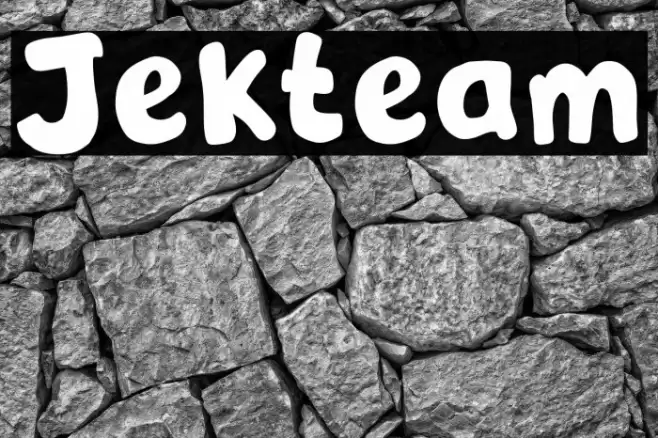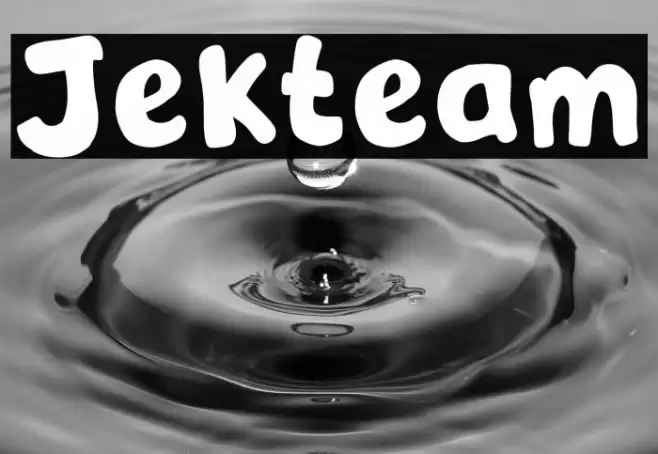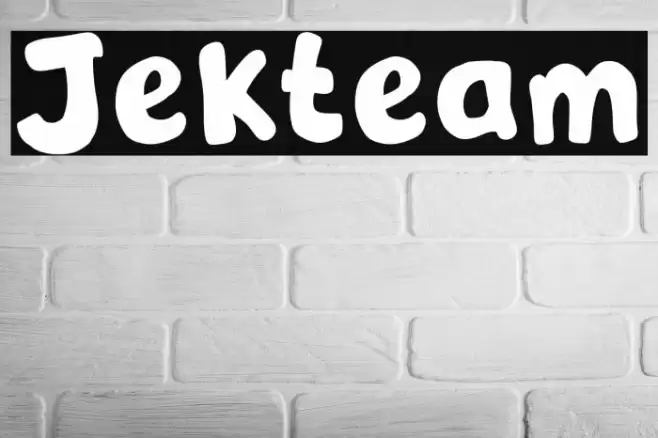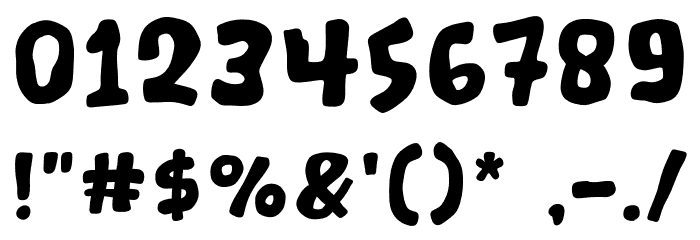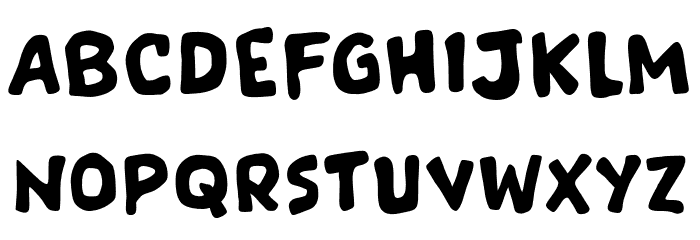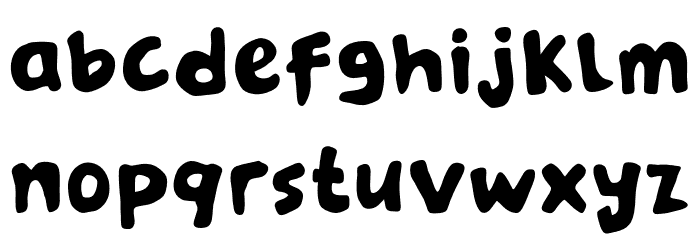
Jekteam Font
Jekteam Description
A playful and bold handwritten font with irregular shapes and a casual style.
Playful handwritten font with bold, irregular shapes from Uncategorized fonts.
- Proposed Projects: Children's books, casual branding, playful posters.
- Overall Style: Playful, Casual